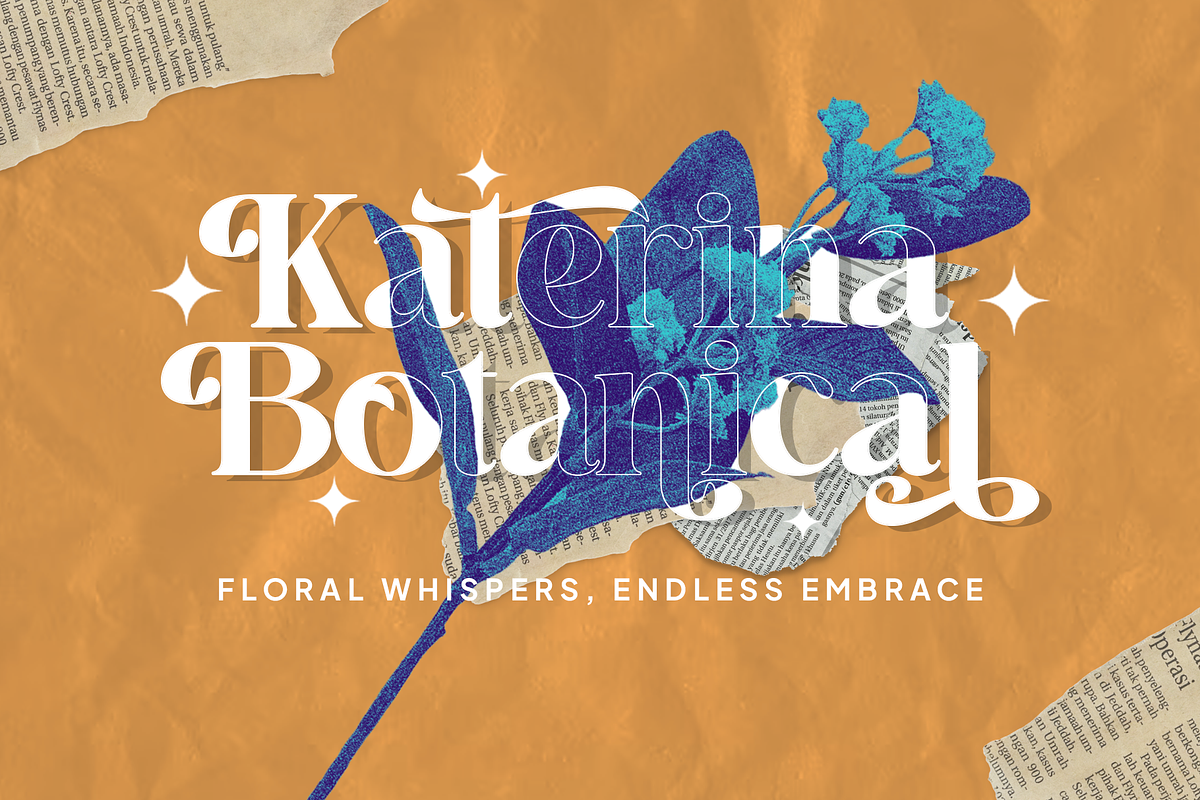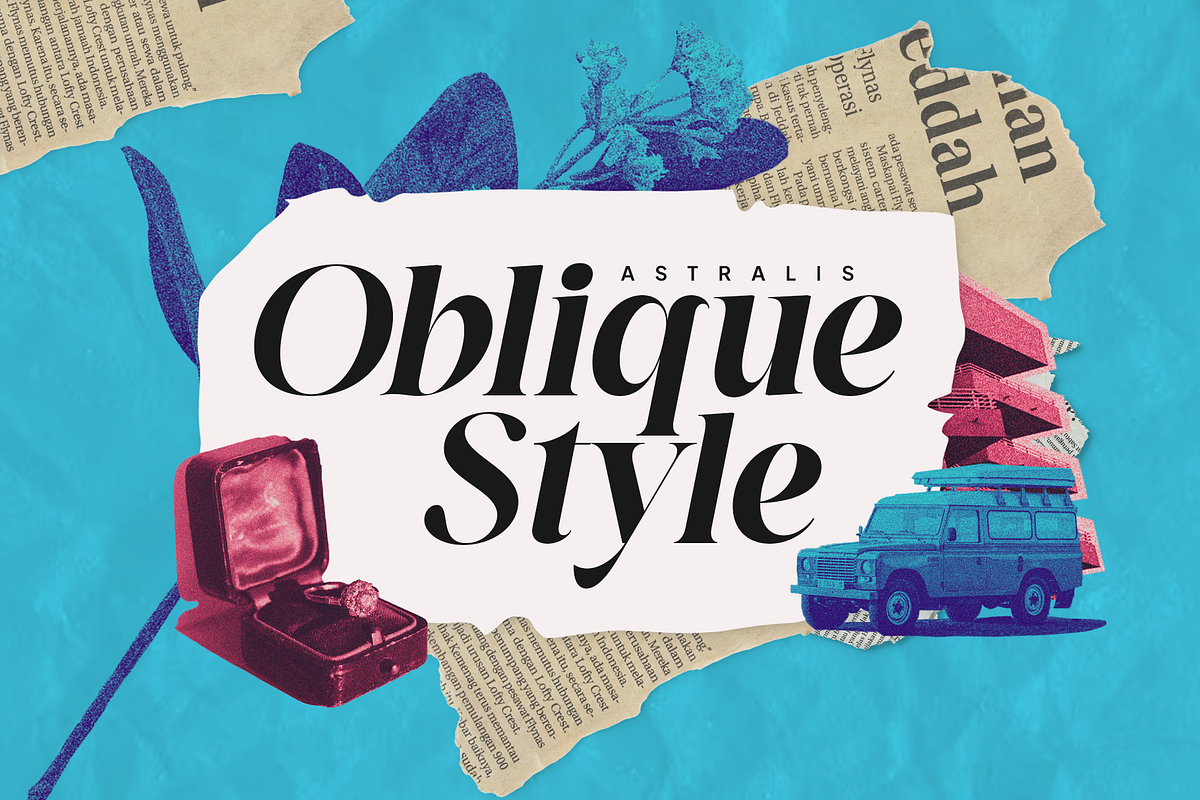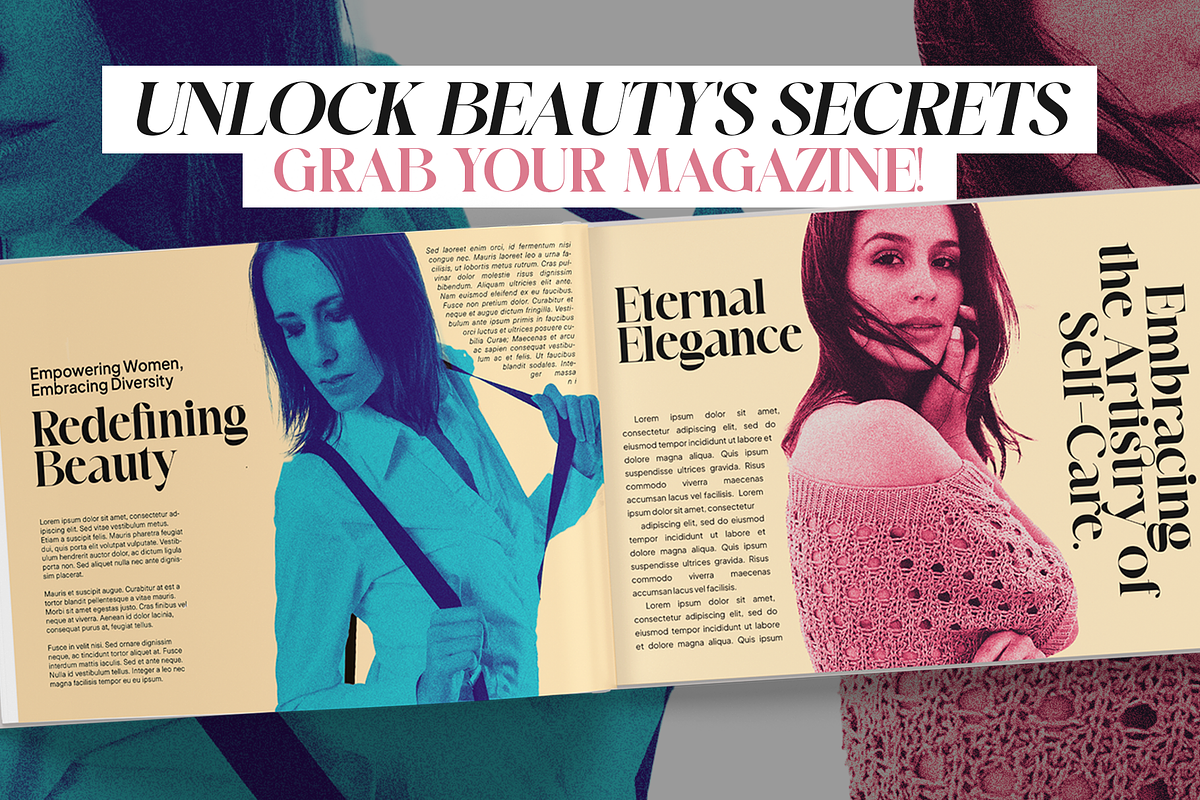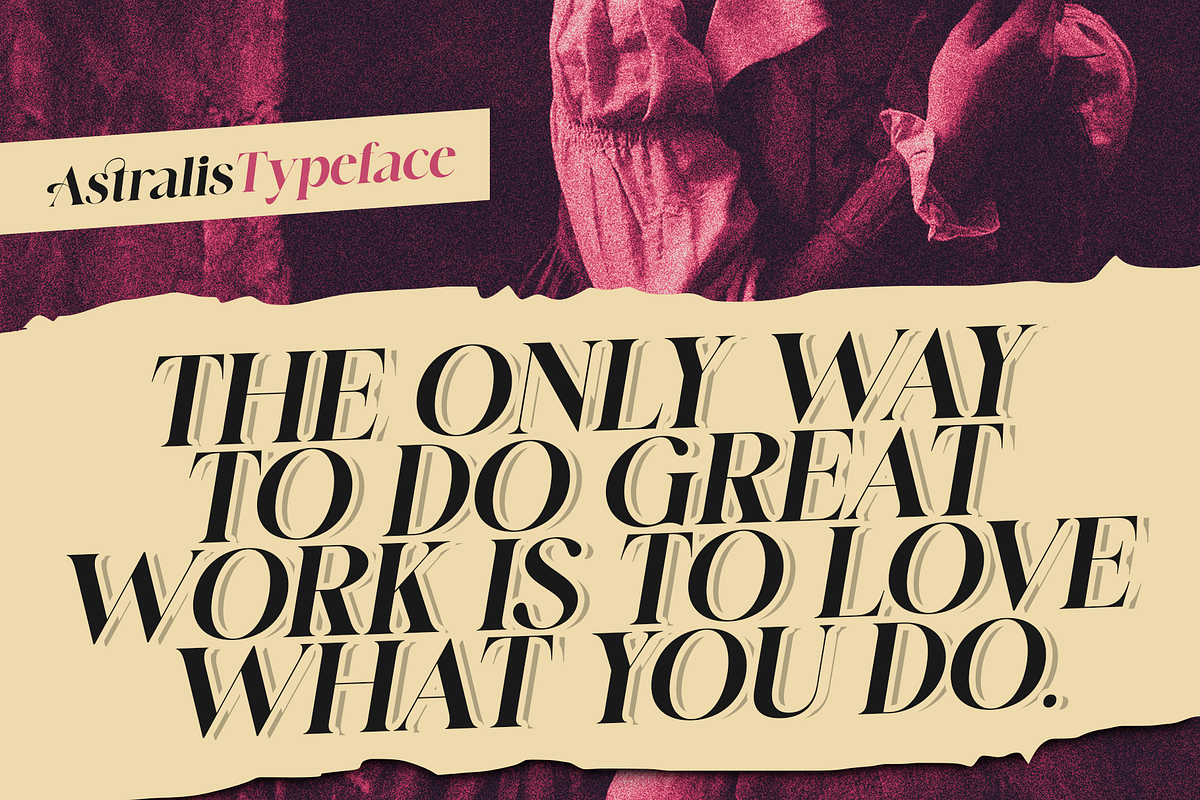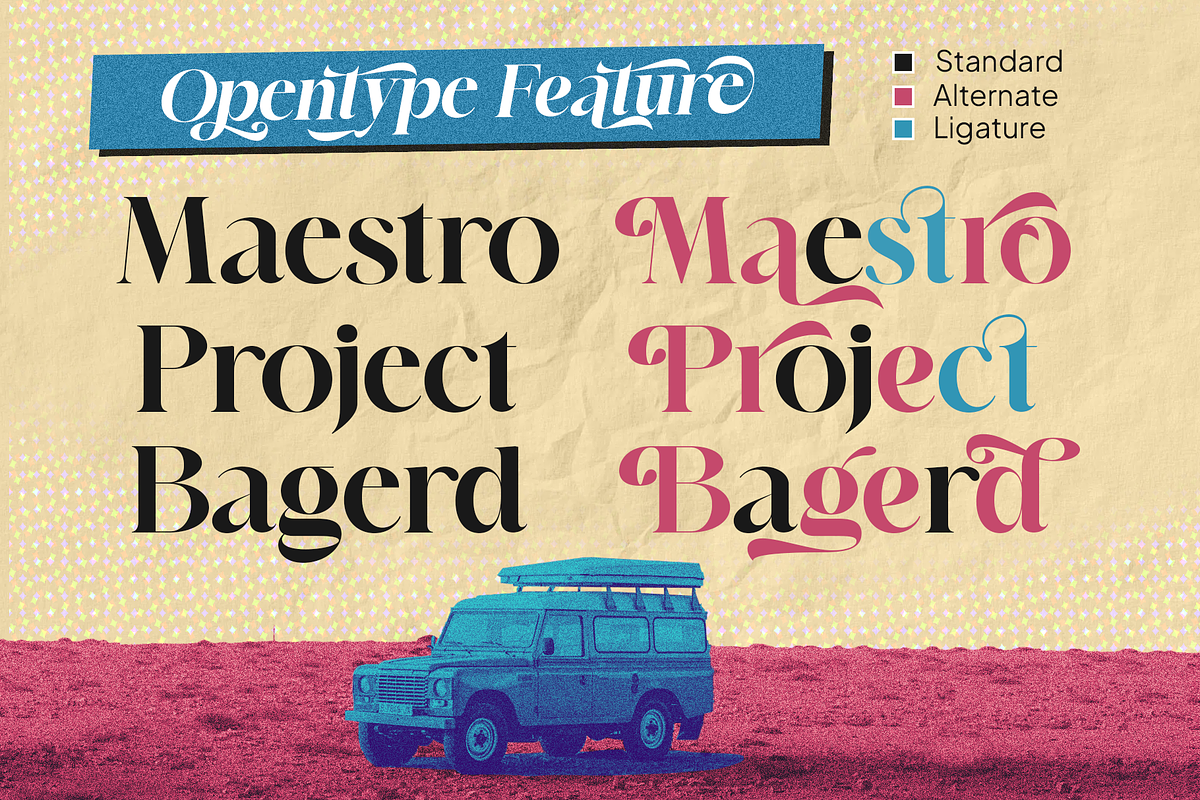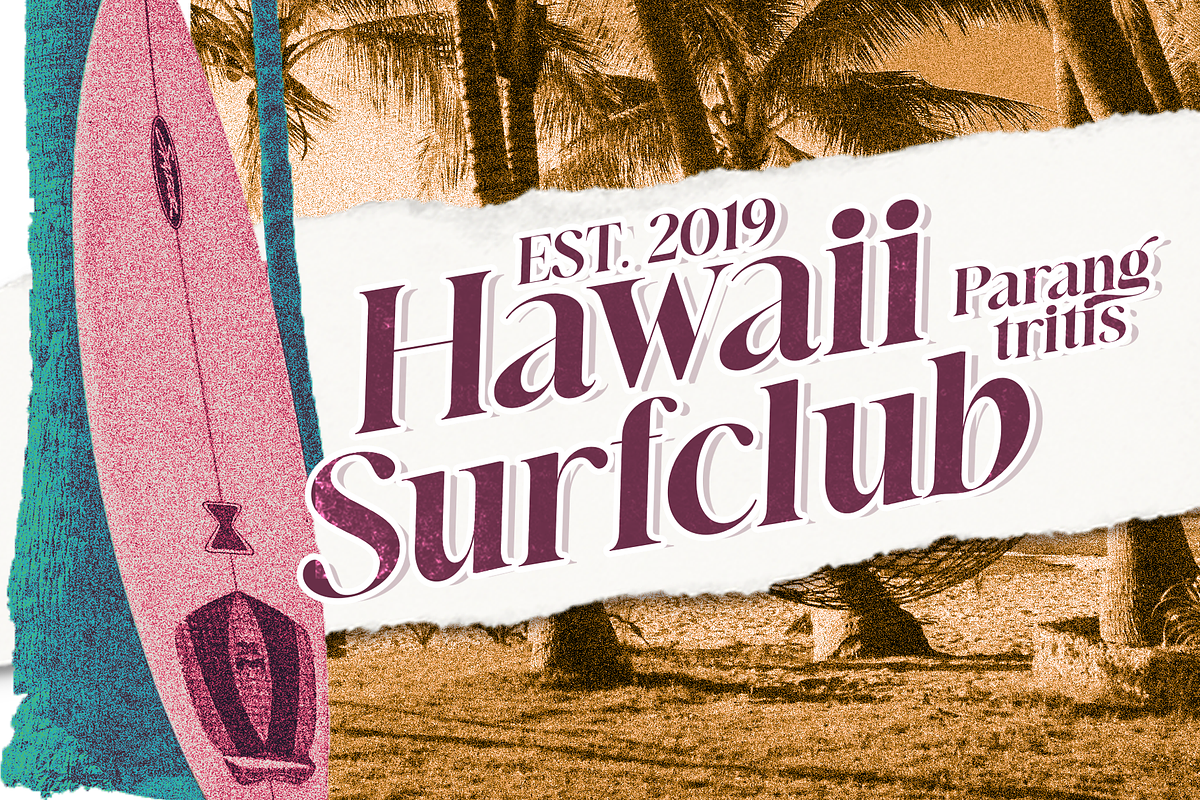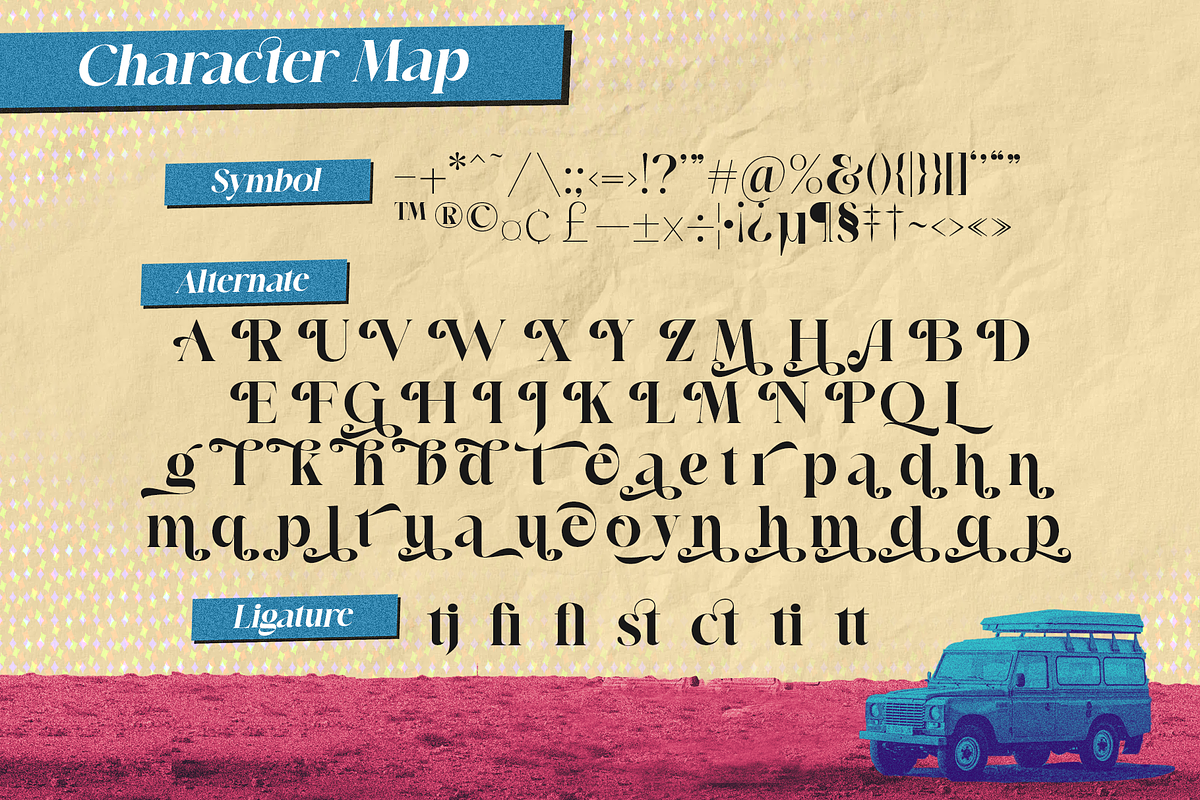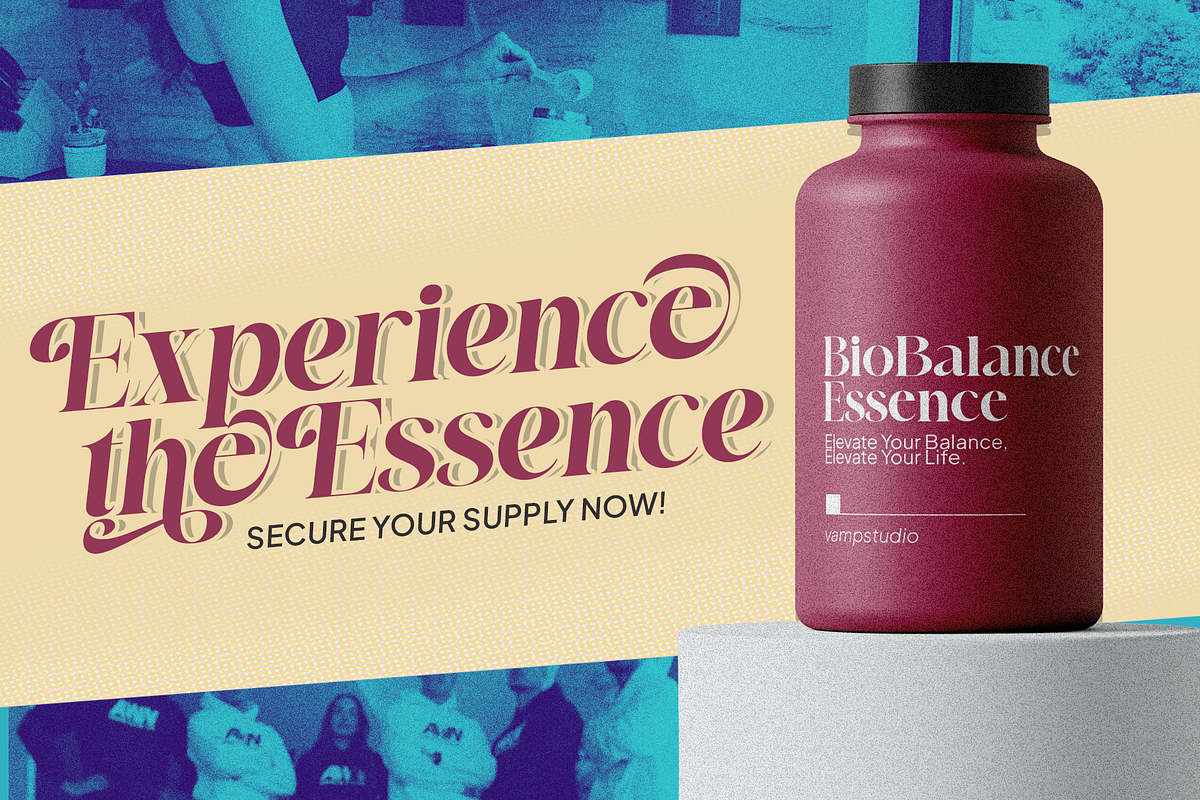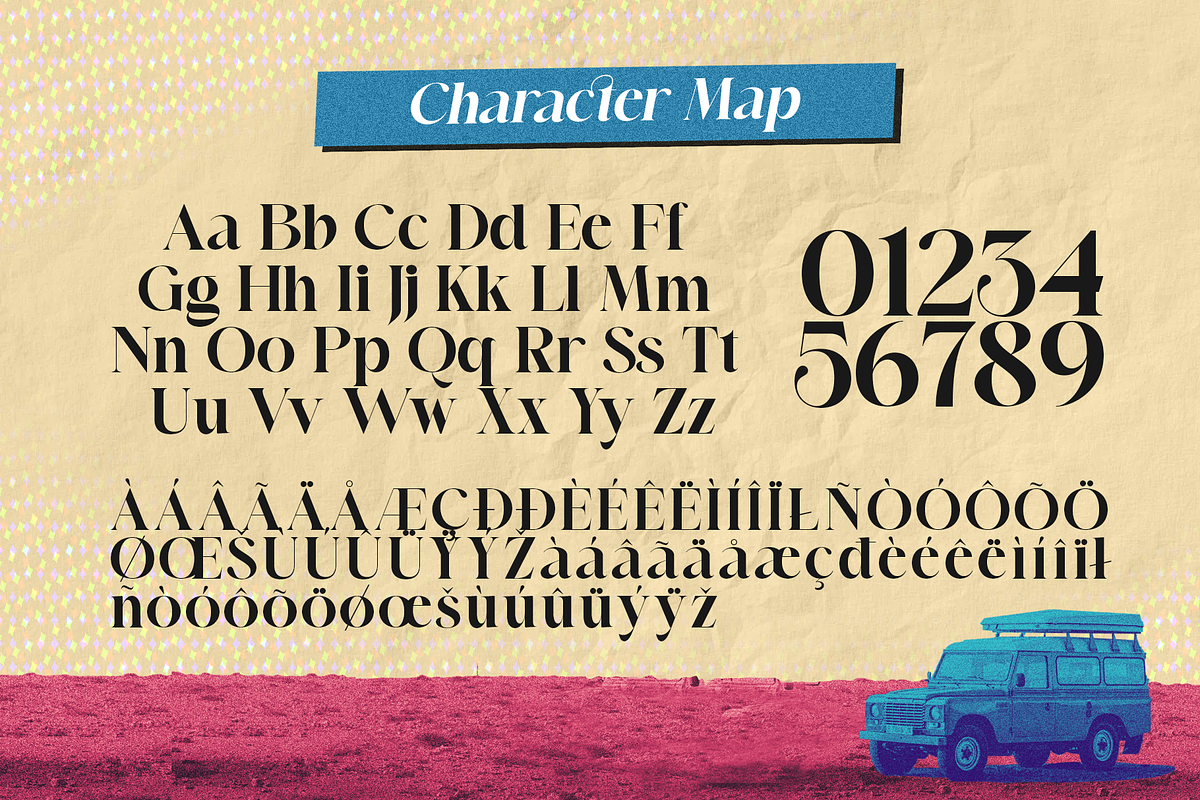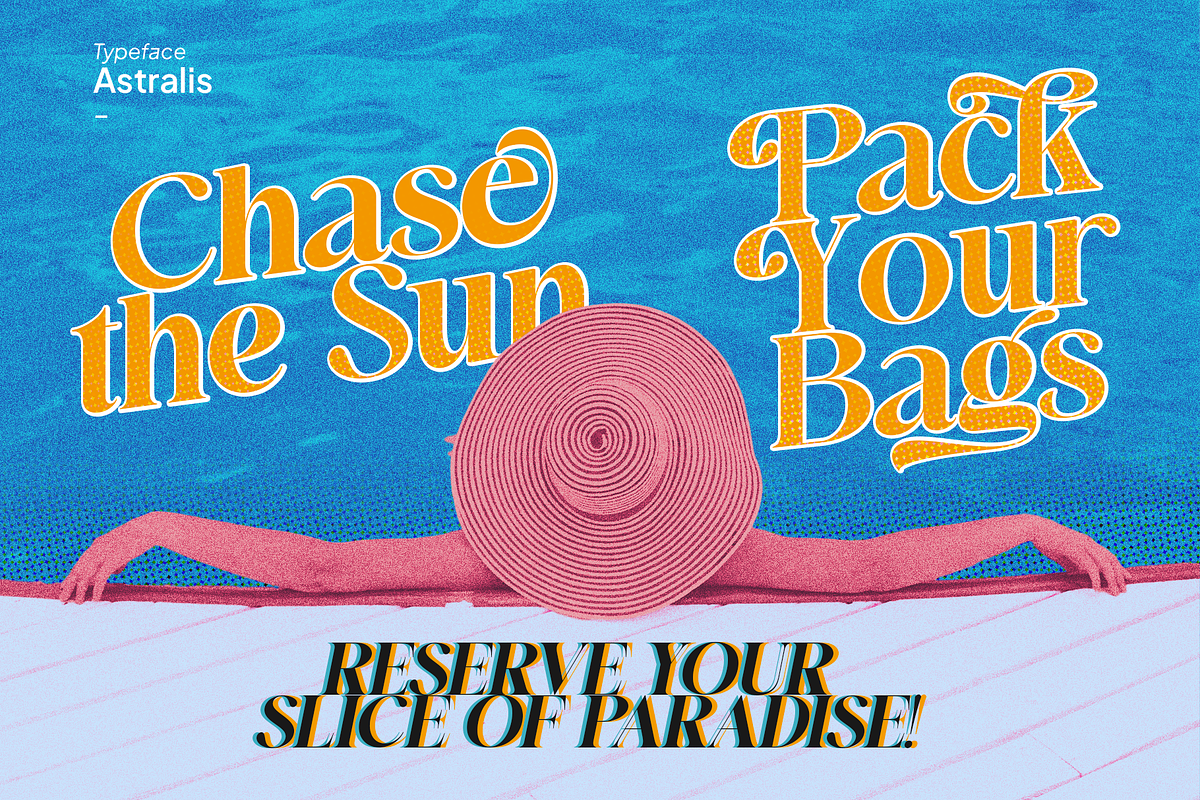
Astralis Stylish Display Font
Introducing "Astralis Retro Display Font" – Relive the Nostalgia of the Past in Typography!
Take a trip back in time with "Astralis," a vibrant retro display font designed to infuse your designs with the nostalgic charm of yesteryears.
- Vintage Vibes: Astralis captures the essence of retro aesthetics, perfect for projects seeking a nostalgic touch from bygone eras.
- Playful Typography: Each character in Astralis is crafted with a playful demeanor, exuding a vibrant and lively energy.
- Versatile Application: Whether for posters, branding, or digital designs, Astralis adds a dose of retro flair to any creative endeavor.
Astralis is perfect for branding projects, logo, wedding designs, social media posts, advertisements, product packaging, product designs, label, photography, watermark, invitation, stationery and any projects that need handwriting taste.
- Fonts include multilingual support for; Afrikaans, Albanian, Czech, Danish, Dutch, English, Estonian, -Finnish, French, German, Hungarian, Italian, Latvian, Lithuanian, Norwegian, Polish, Portuguese, Slovak, Slovenian, Spanish, Swedish.